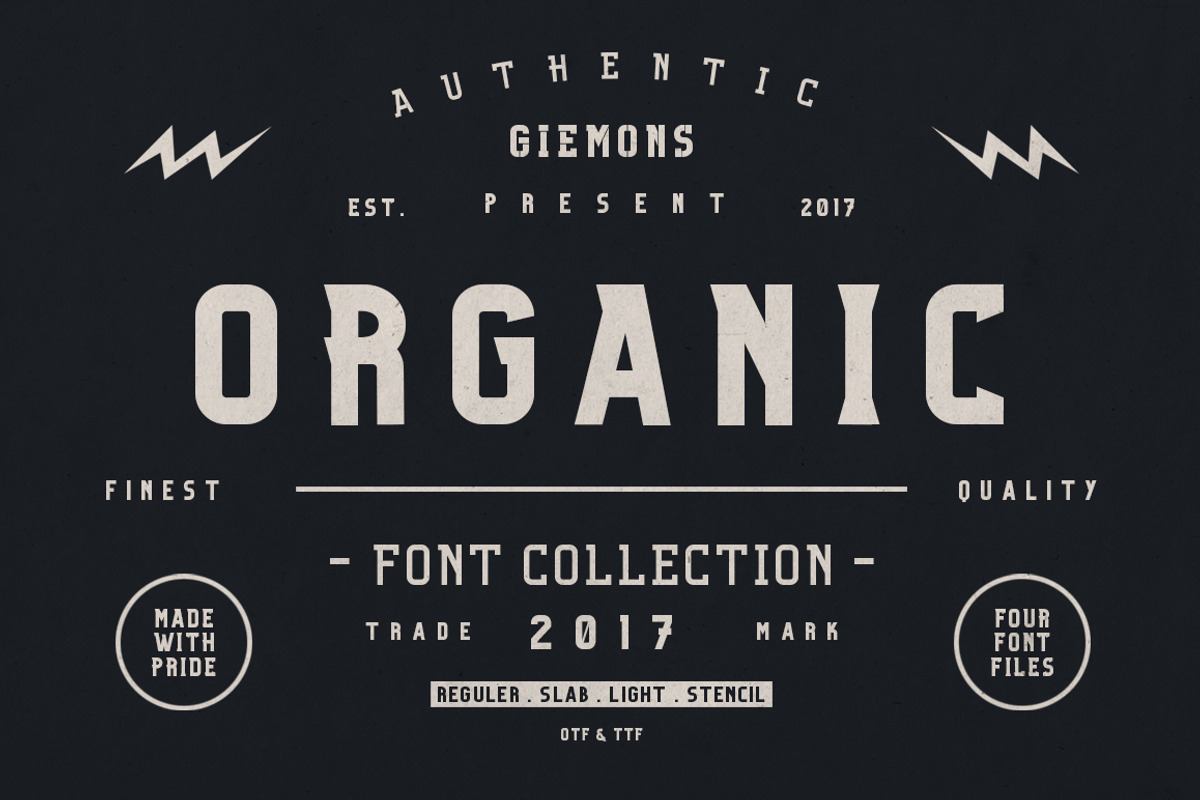
Please note that you must purchase this font family for commercial use. You can download Organic Family Font for free, strictly for personal testing purposes only. Organic Family is a versatile font family that combines natural, earthy design elements with modern typography. With its clean lines and organic-inspired letterforms, Organic Family Font Free Download is perfect for projects that require a fresh, eco-friendly, and modern feel, such as branding, logos, packaging, posters, and social media graphics.
The family includes multiple font styles—ranging from serif to sans-serif and everything in between—allowing you to create flexible and visually appealing designs. It includes uppercase and lowercase letters, numerals, punctuation, and multilingual support, ensuring that the font works for global applications.
Whether you're designing for an eco-conscious brand, creating modern packaging, or building a sustainable brand identity, Organic Family Font adds natural elegance to your typography.